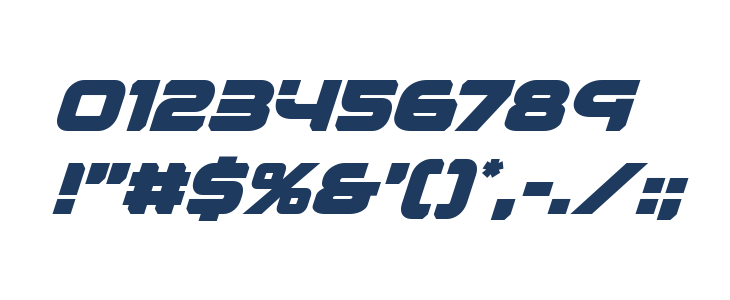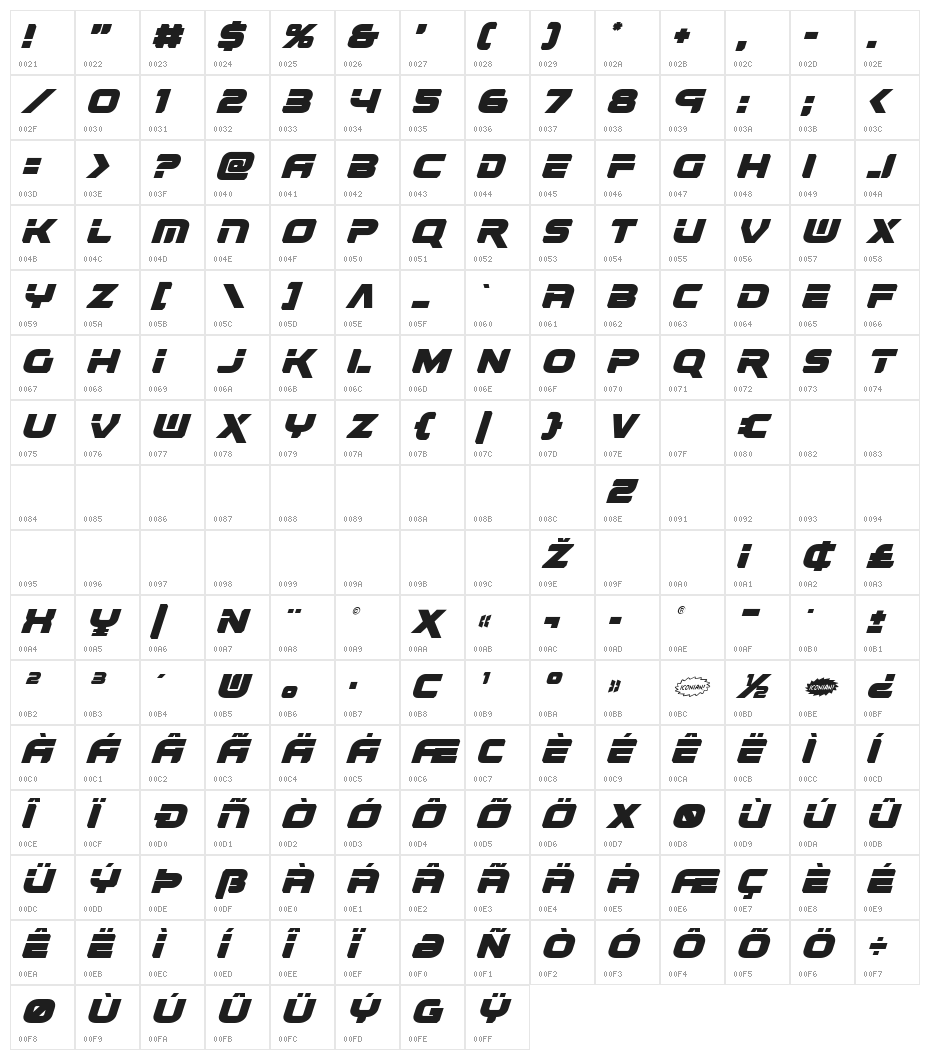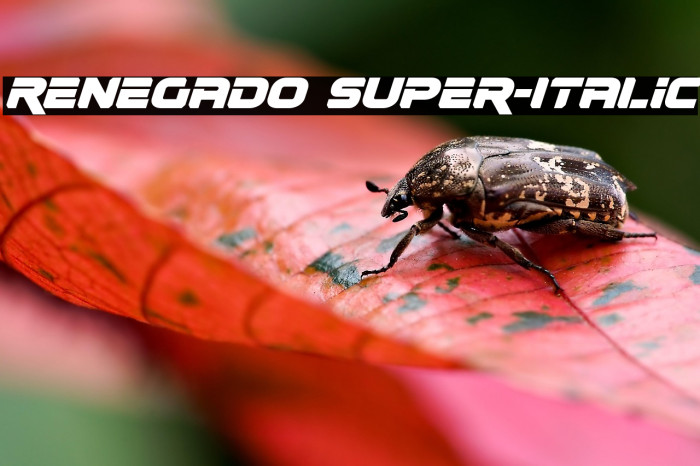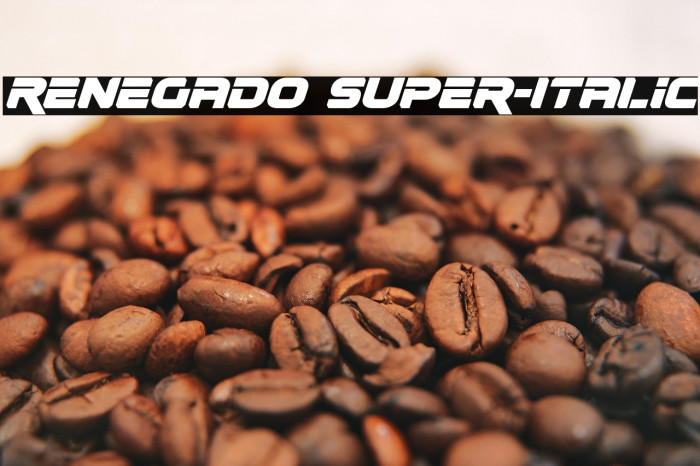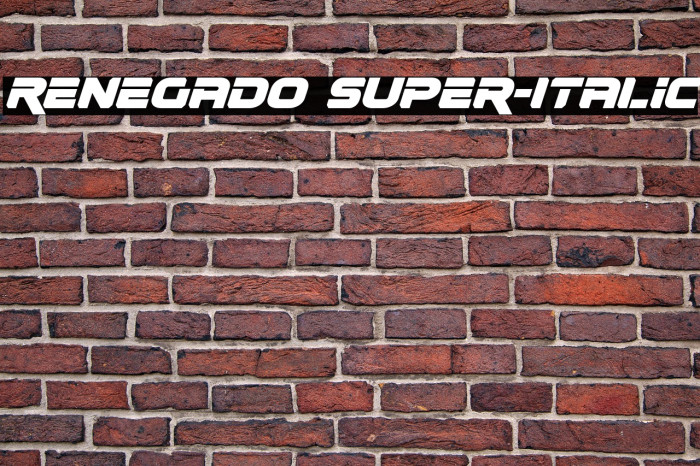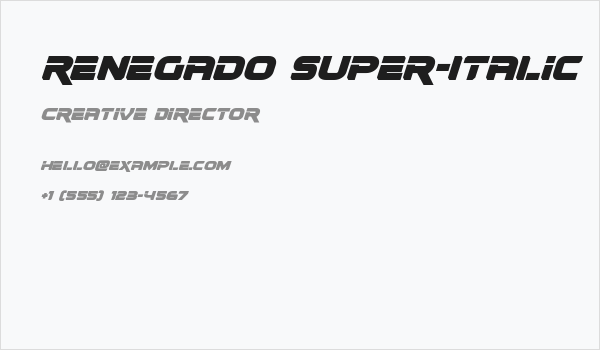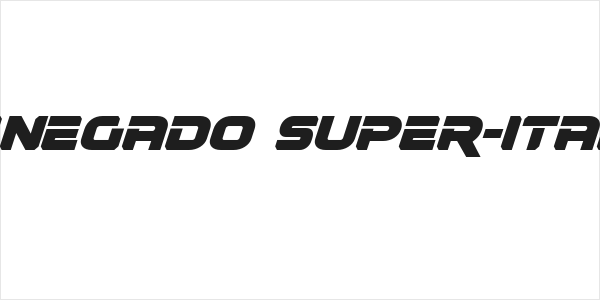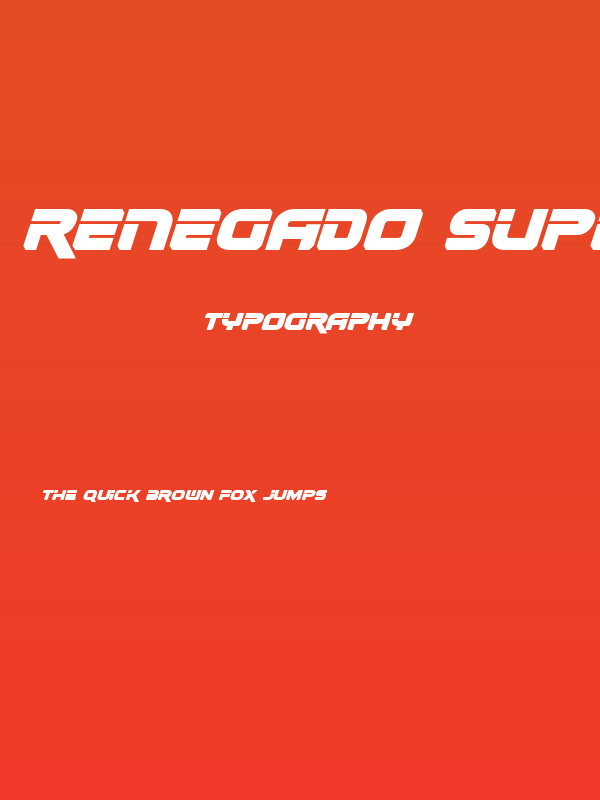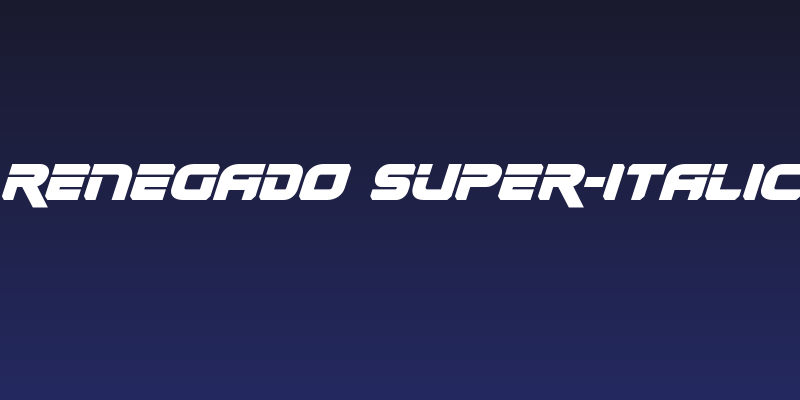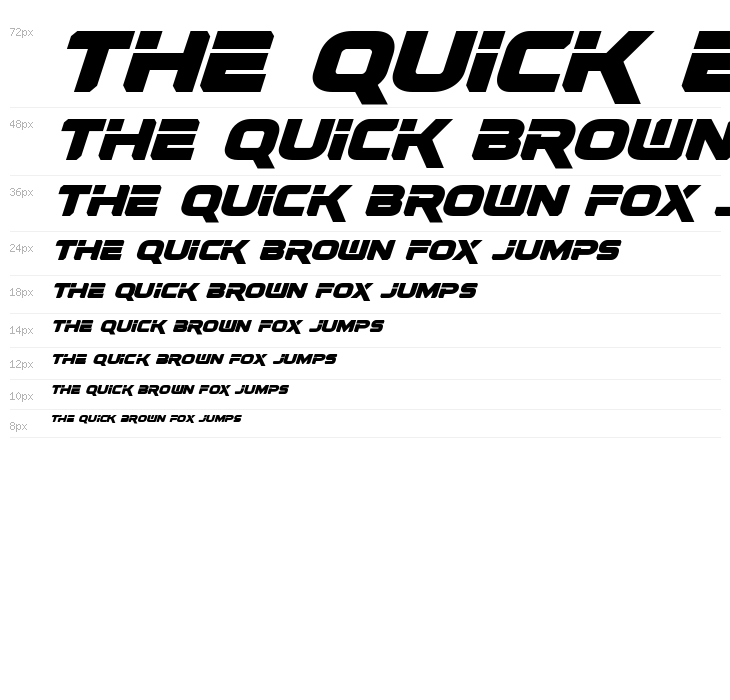
Renegado Super-Italic Font
Renegado Super-Italic Description
This font features a bold, italicized style with a strong, dynamic presence. The characters are designed with a forward-leaning slant, giving a sense of motion and speed. The strokes are thick and consistent, providing a robust and impactful appearance. The overall design is modern and sleek, with a futuristic vibe that makes it suitable for high-energy and contemporary projects. The uppercase and lowercase letters maintain a uniform width, contributing to a cohesive look. The numerals and special characters are equally bold, ensuring they stand out in any context.
Proposed ProjectsIdeal for sports branding, automotive advertisements, tech-related designs, and dynamic posters.